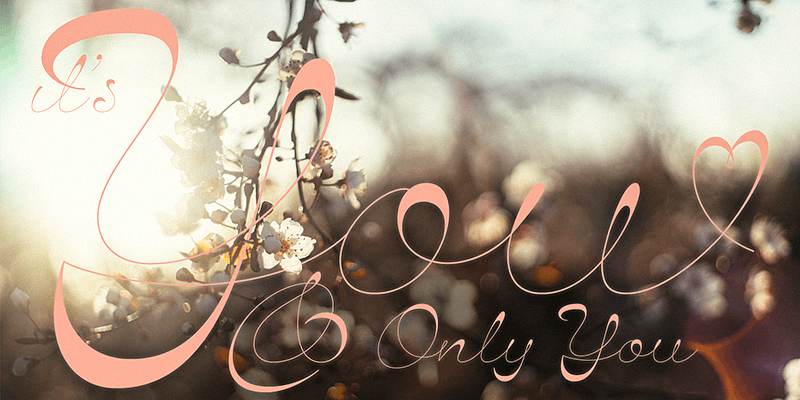
Hazel Script Font Free Download is a graceful and flowing handwritten script typeface, perfect for adding a personal and elegant touch to your designs. With its smooth curves, natural stroke rhythm, and calligraphic charm, Hazel Script is ideal for wedding invitations, branding, social media graphics, greeting cards, and stylish packaging.
Designed to evoke warmth and sophistication, Hazel Script Font captures the beauty of hand lettering with modern polish. It features delicate swashes and alternate characters, making it a great choice for projects that need both flair and legibility.
Add a romantic, handwritten charm to your creative work with Hazel Script Font. Download it today and make your typography stand out with grace and personality.